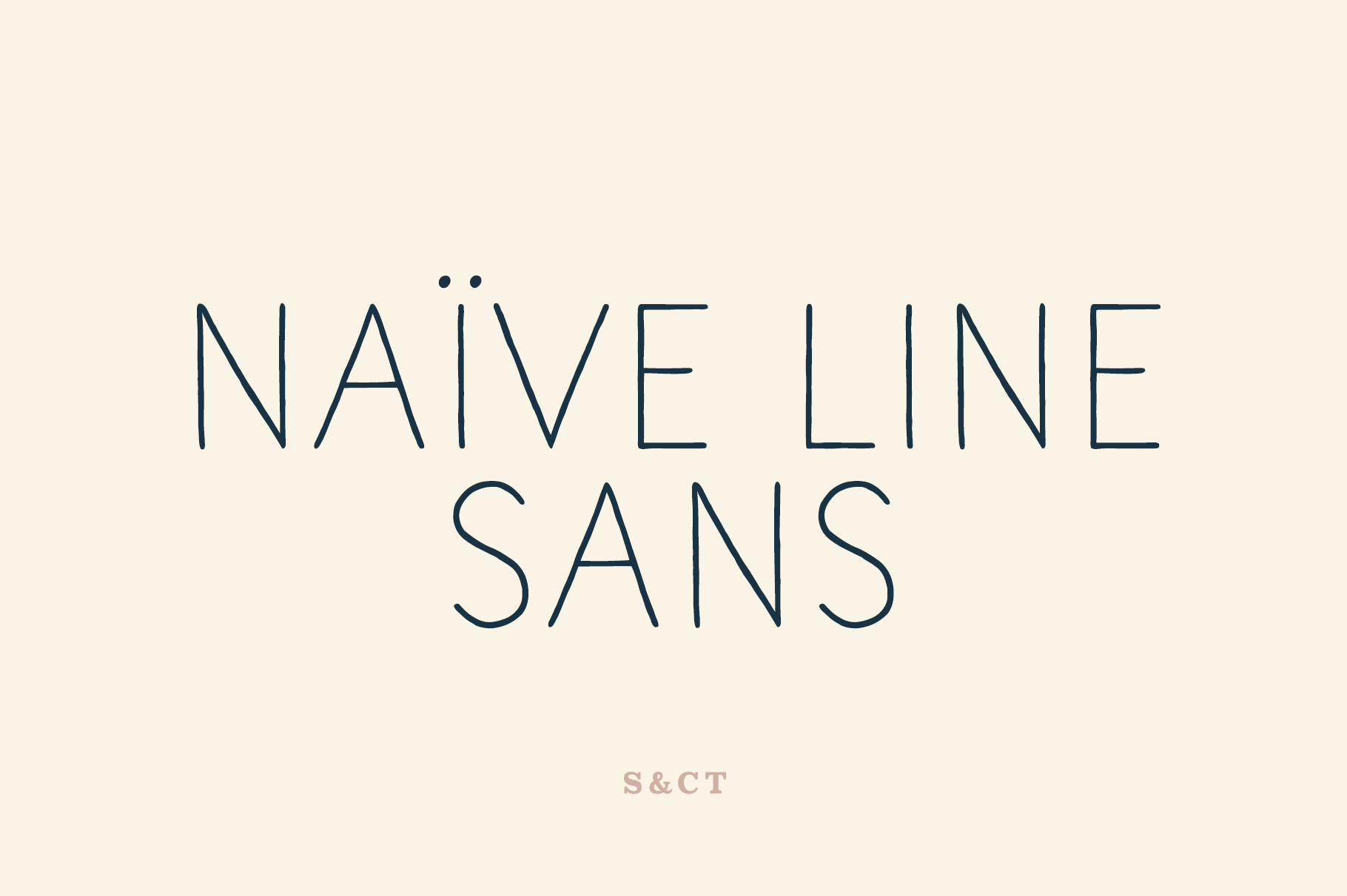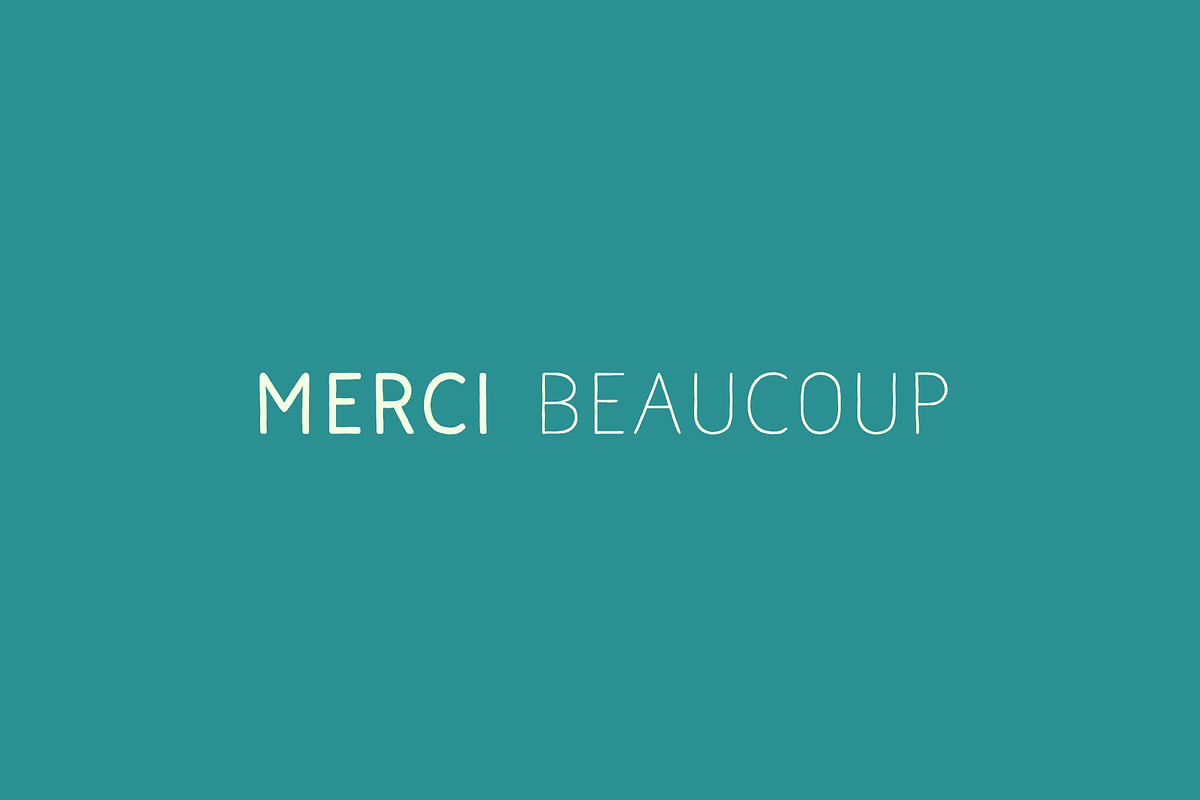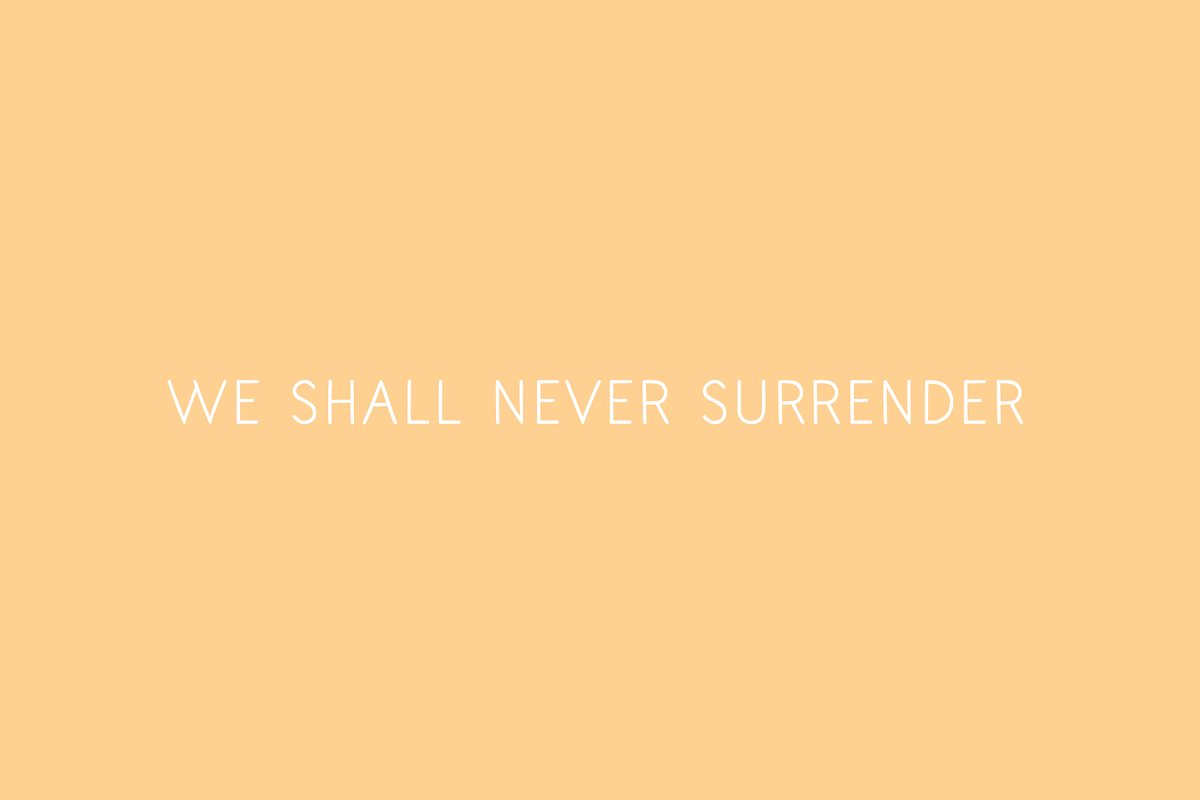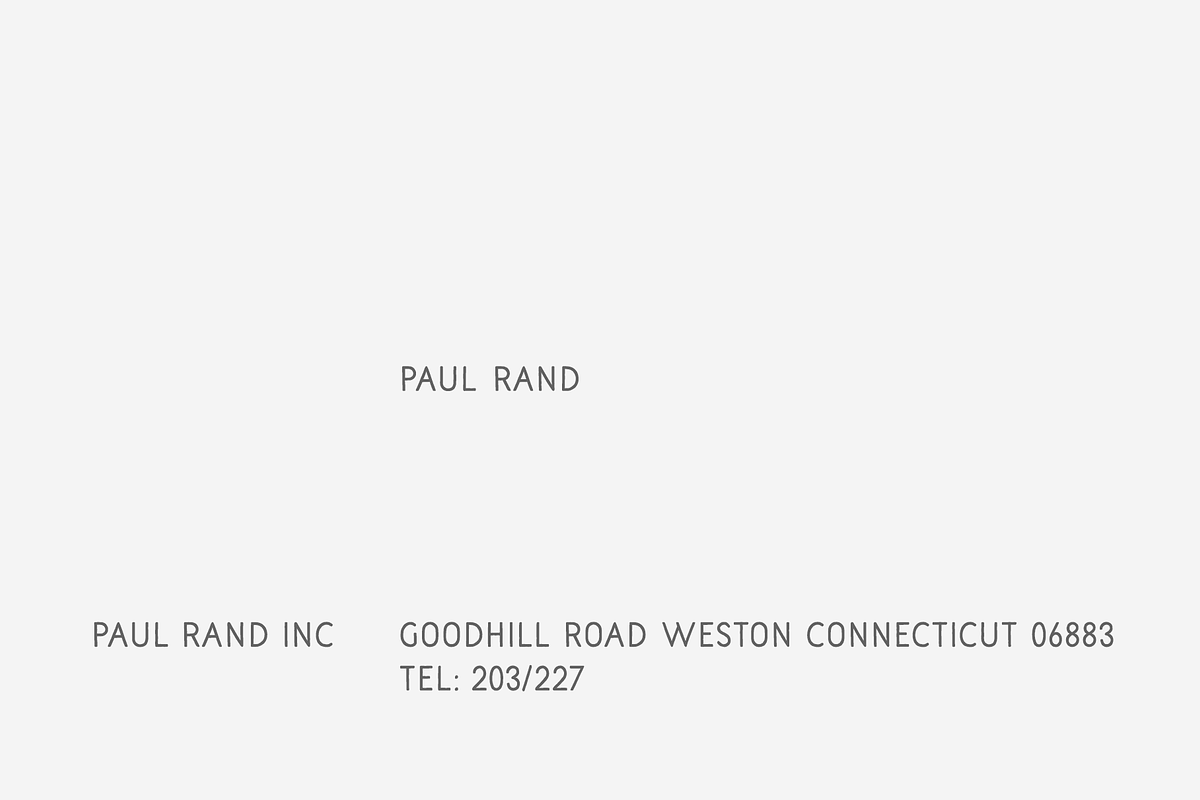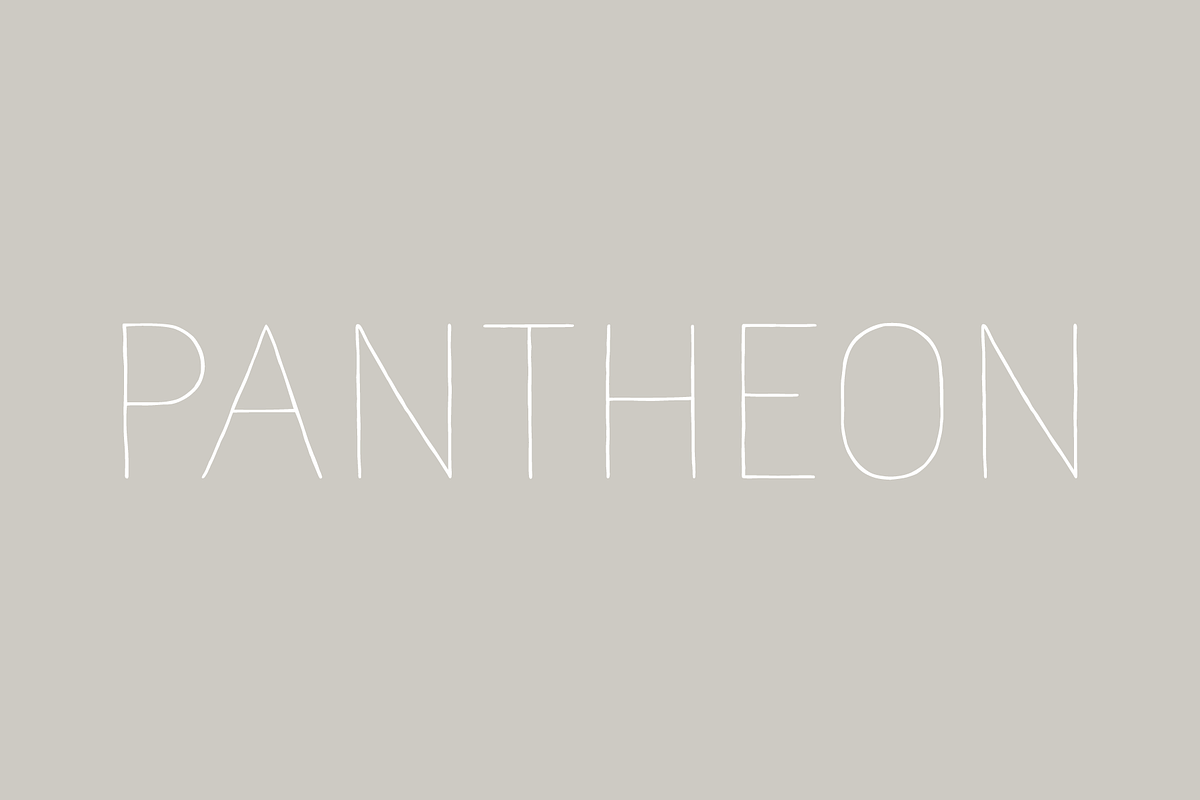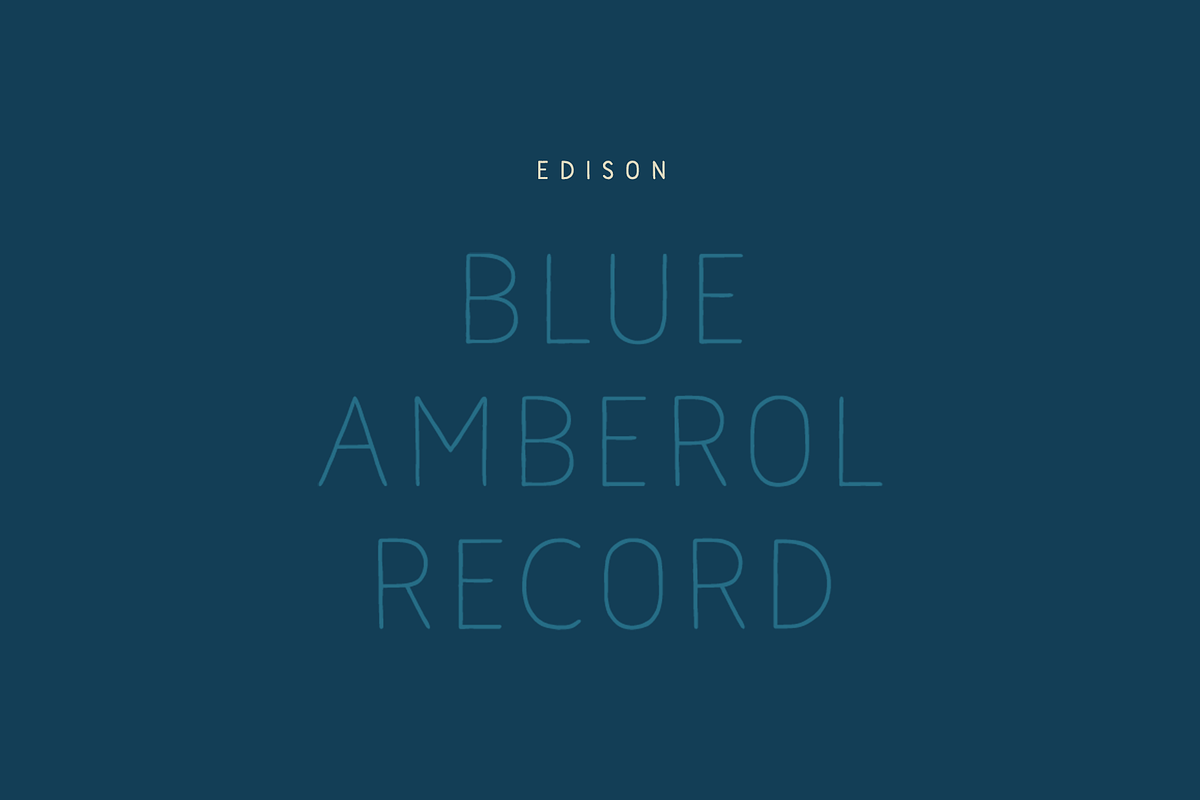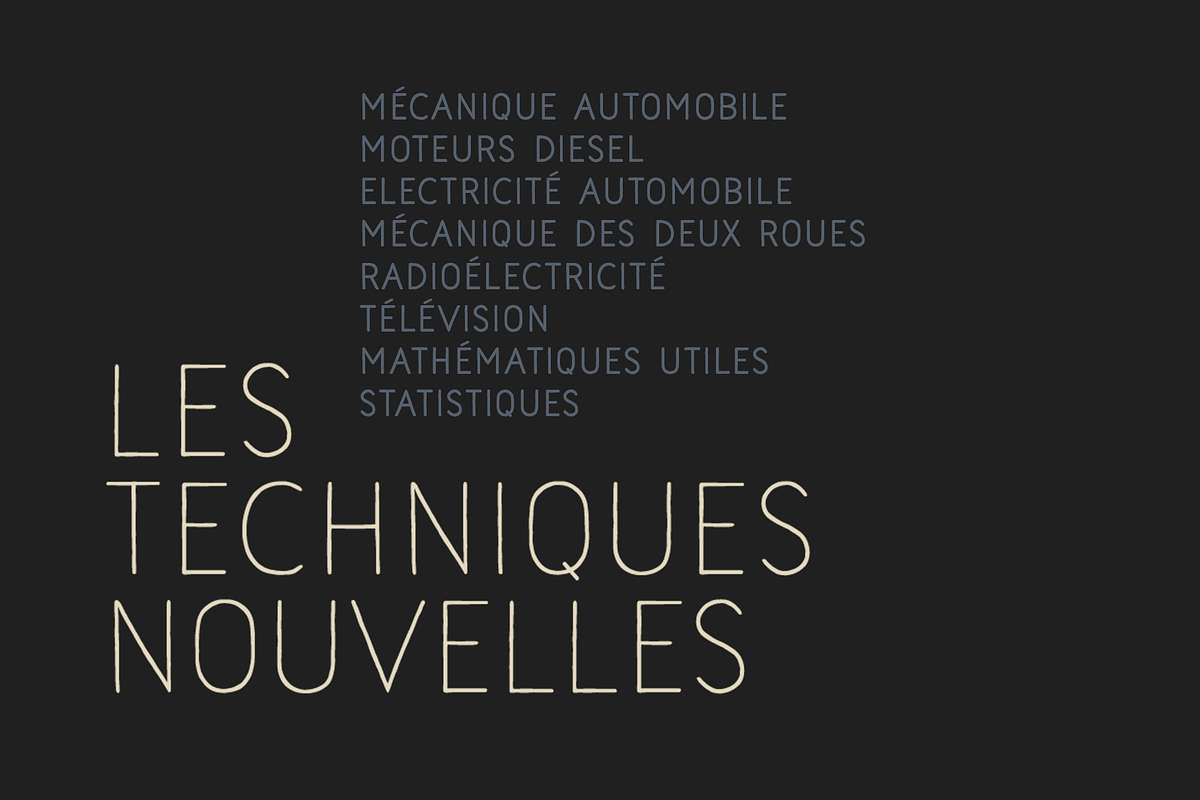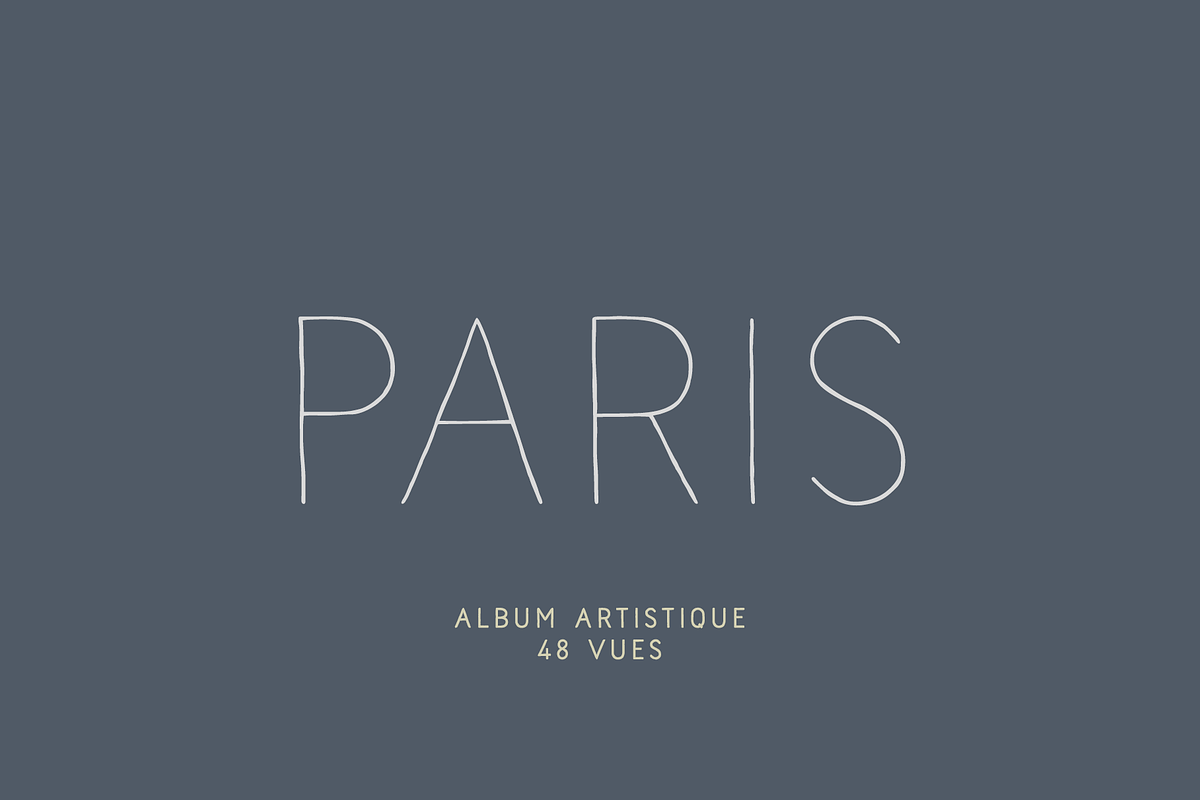
Naive Line Sans Font Collection
Naïve Line Sans is an unusual handwritten sans serif font designed by Fanny Coulez and Julien Saurin in Paris. Our goal was to draw a font with finely irregular lines that give a human and whimsical feeling.
We designed five weights, finely balanced, to assure a good readability whatever the size.
This font is part of our Naïve superfamily that contains lot of variations: Line, Inline, Serif, Sans Serif, and a special Art Deco one. Just click on our foundry name to see them all!